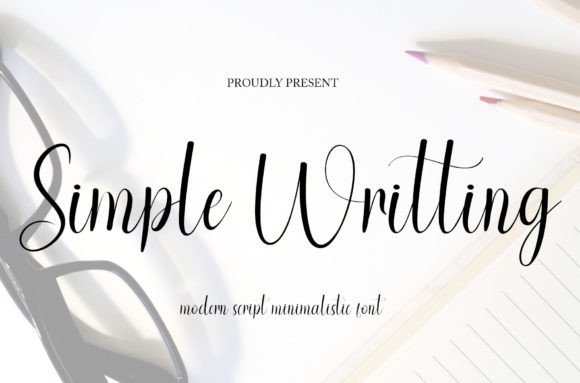
Behold the splendor of Simple Writing Font, a breathtaking script font family that will captivate you with its allure and bewitching beauty. This font, conceived by the ingenious mind of Sansana, is a modern masterpiece that has garnered accolades from discerning designers and typography enthusiasts alike.
Simple Writing Font exudes an enchanting aura that will elevate your creative endeavors to unparalleled heights. Its rhythmic strokes, reminiscent of a skilled calligrapher's hand, dance across the page with elegance and grace, leaving a trail of visual artistry in their wake.
Whether you're a seasoned graphic designer crafting captivating visuals or a passionate crafter seeking to add a touch of charm to your handmade creations, Simple Writing Font is the perfect companion for your artistic pursuits. Its versatility knows no bounds; it effortlessly transforms digital designs into captivating masterpieces, lends a polished touch to presentations, and adds a heartfelt charm to greeting cards that express your warmest sentiments.
The beauty of Simple Writing Font lies in its ability to evoke a spectrum of emotions, from the delicate charm of a love letter to the bold confidence of a corporate brochure. Its intricate curves and playful flourishes infuse your words with an eloquence that commands attention and leaves a lasting impression on your audience.
With Simple Writing Font at your disposal, the possibilities for creative expression are endless. Let it be the brush that paints your digital canvas with vibrant colors of imagination, the chisel that sculpts your designs into timeless works of art, or the quill that pens heartfelt messages that touch the soul.